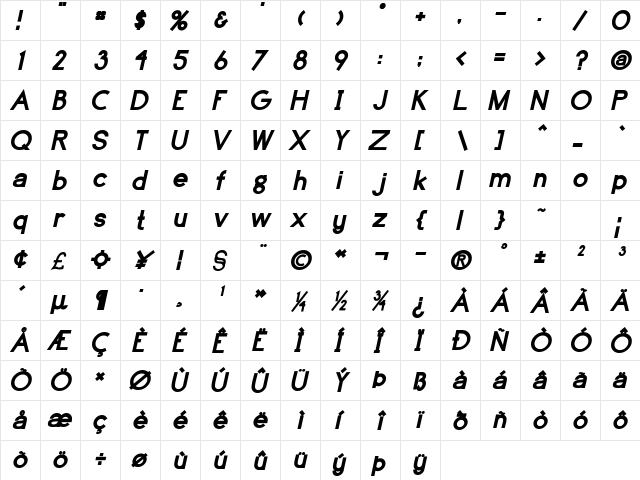
CobellSSK BoldItalic
Design Context for CobellSSK Typeface
CobellSSK takes a measured approach to typography — its balanced proportions and neutral character make it a reliable workhorse for both digital and print work. Its italic angle brings a sense of urgency and motion to the letterforms. The heavy weight commands attention and anchors typographic hierarchies.
Pro Tip: Use CobellSSK for emphasis, pull quotes, and subheadings where its slanted energy can add rhythm to the layout.